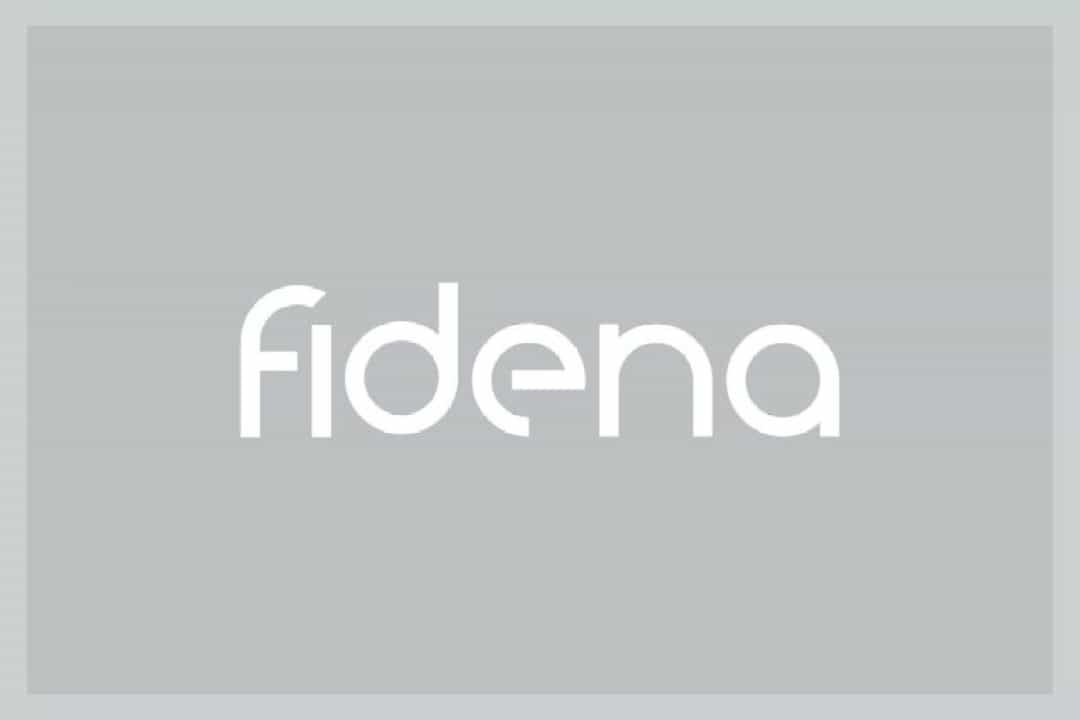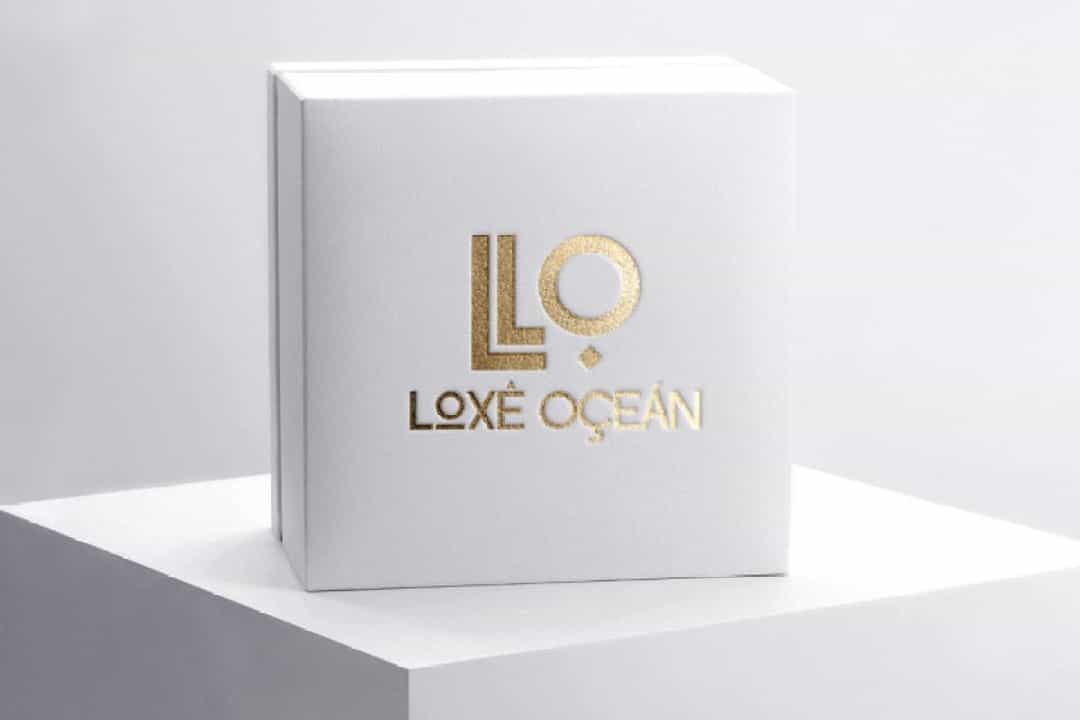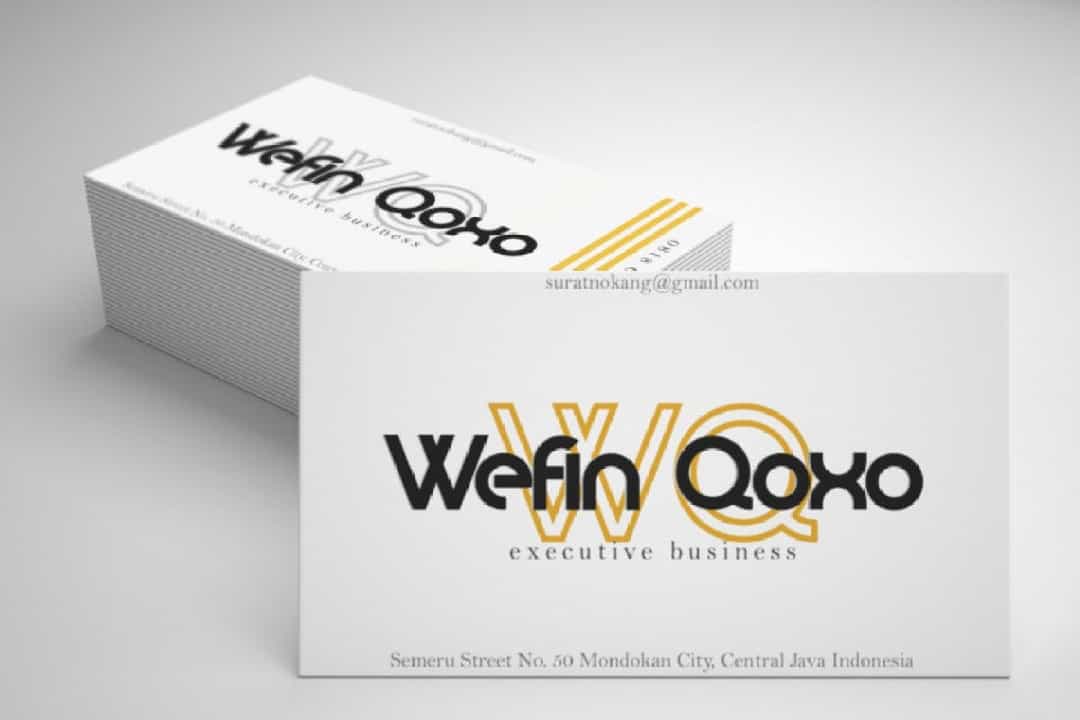
Fidena is an elegant sans-serif font. Thanks to its clean and minimalist design, this font can suit a range of styles perfectly; becoming your font of choice no matter the event! There are four weight options for Fidena: ordinary, hollow and thin that work seamlessly together as the ideal complements for serifs and scripts alike.